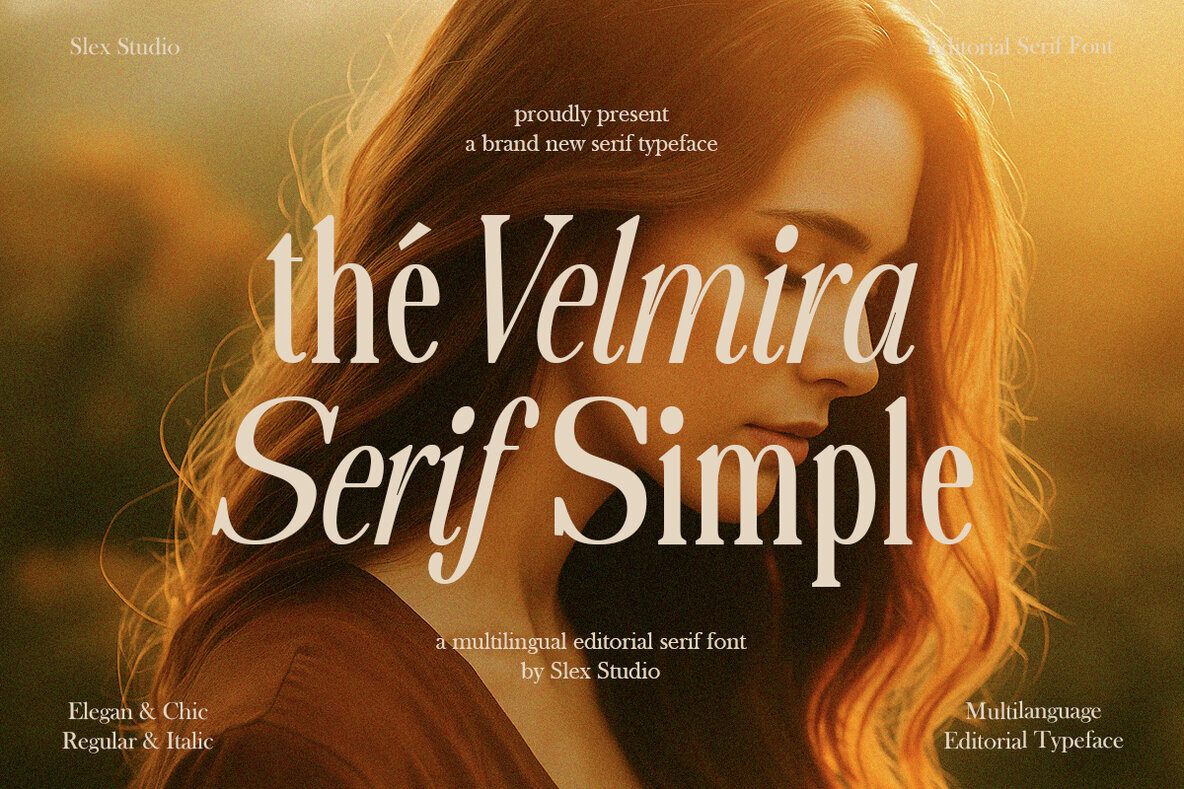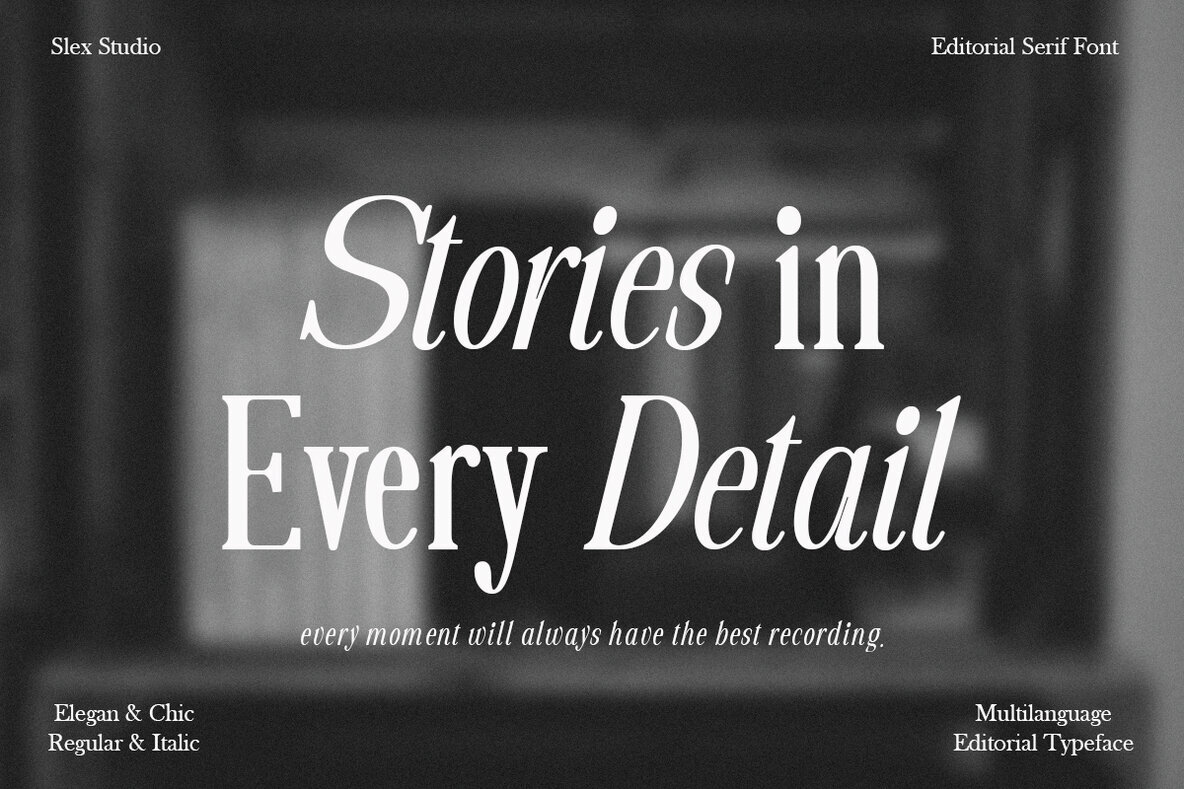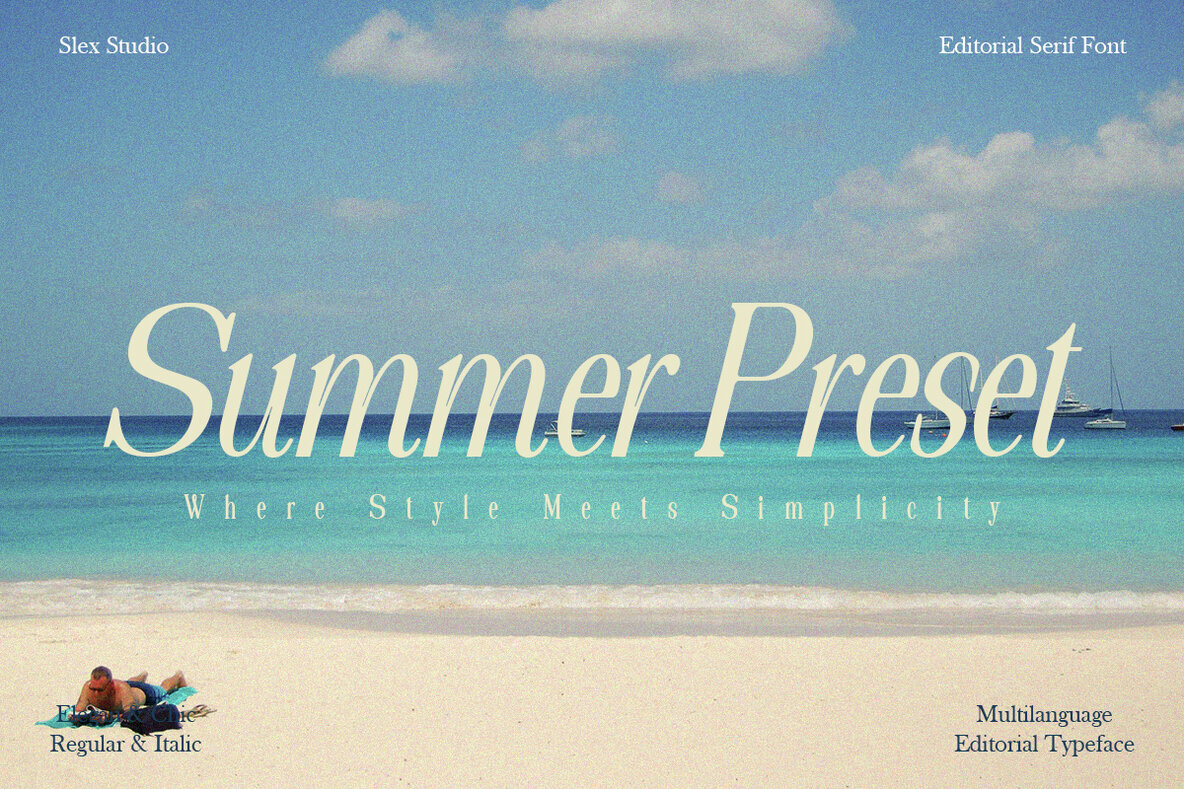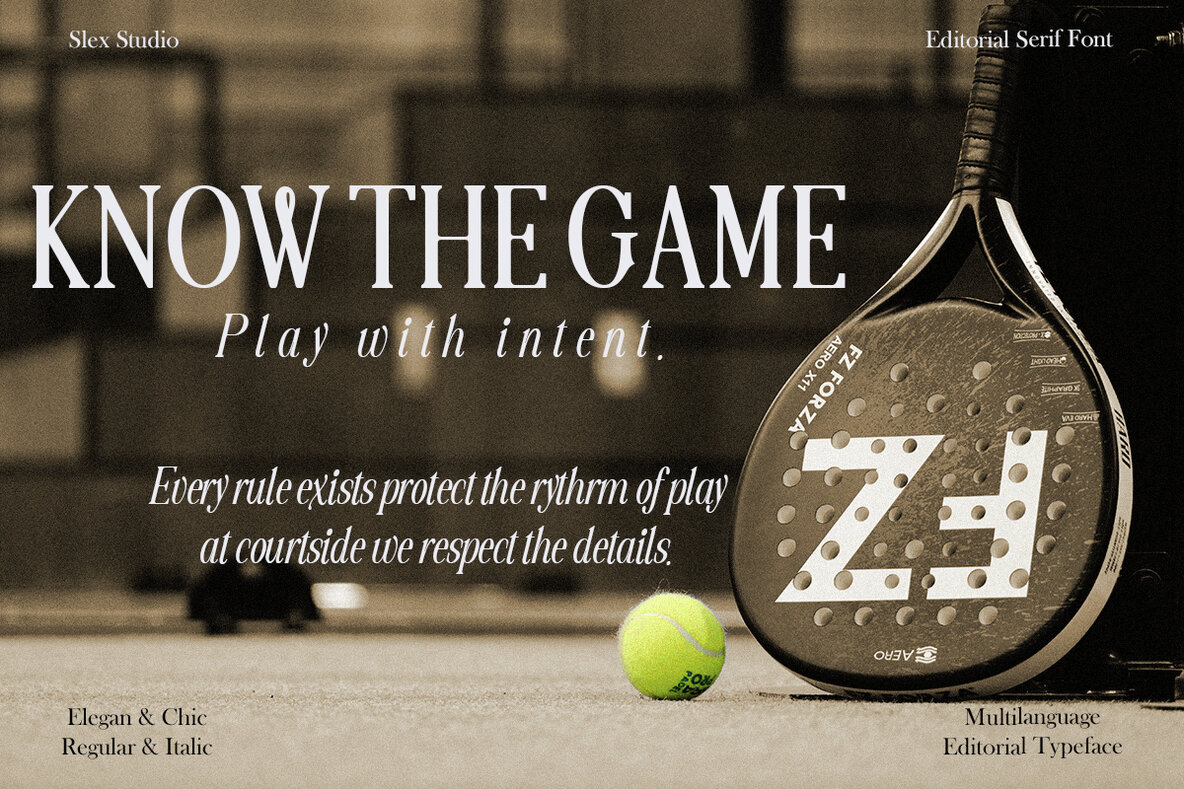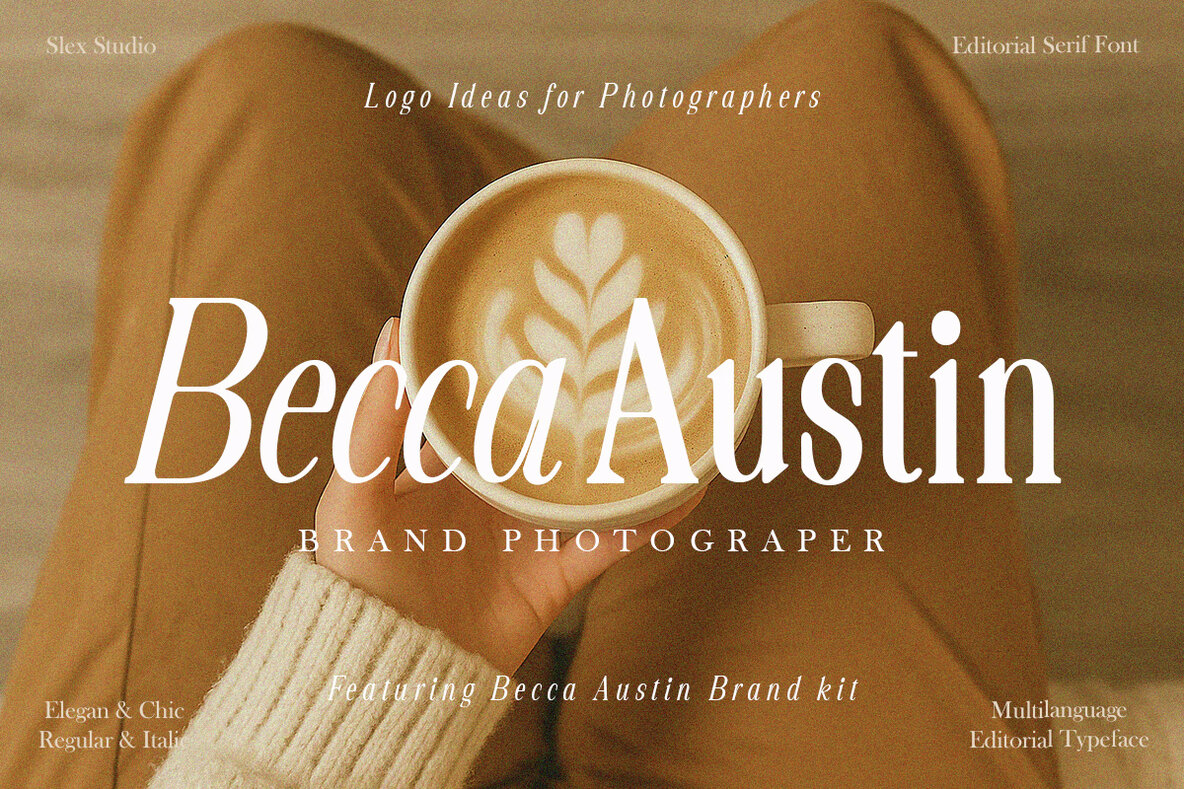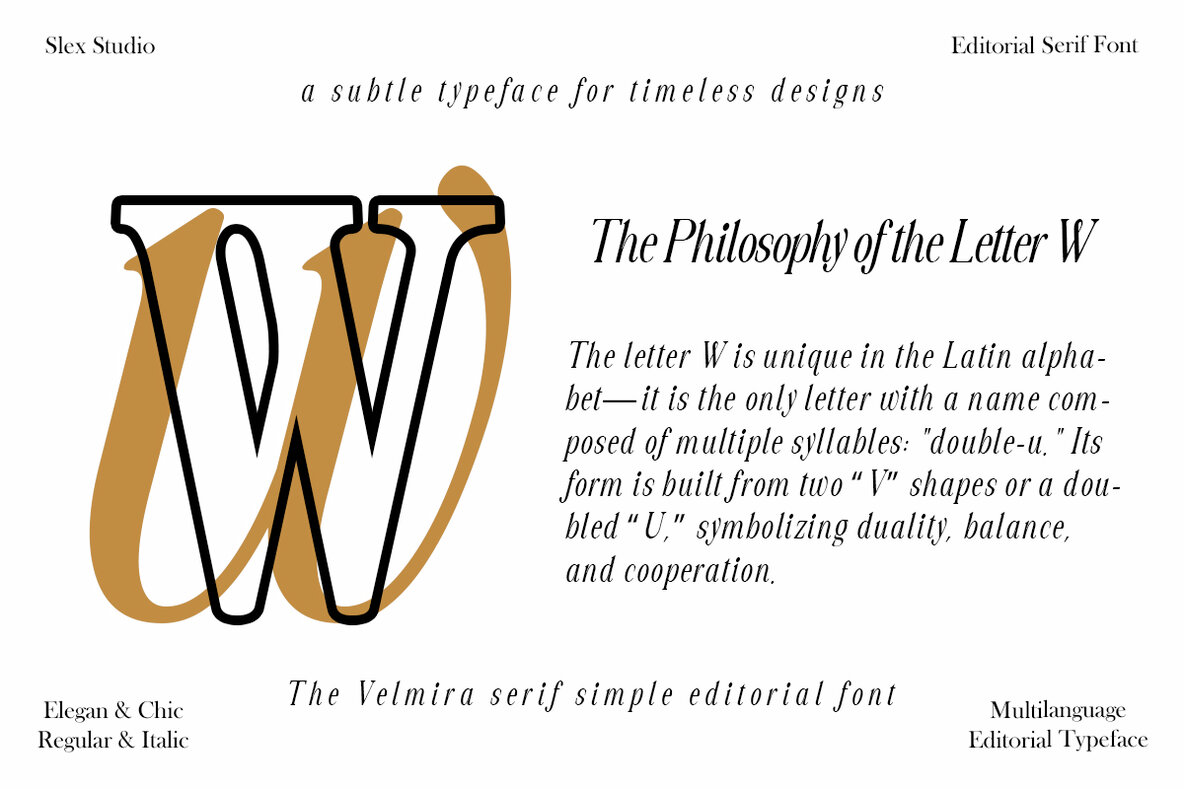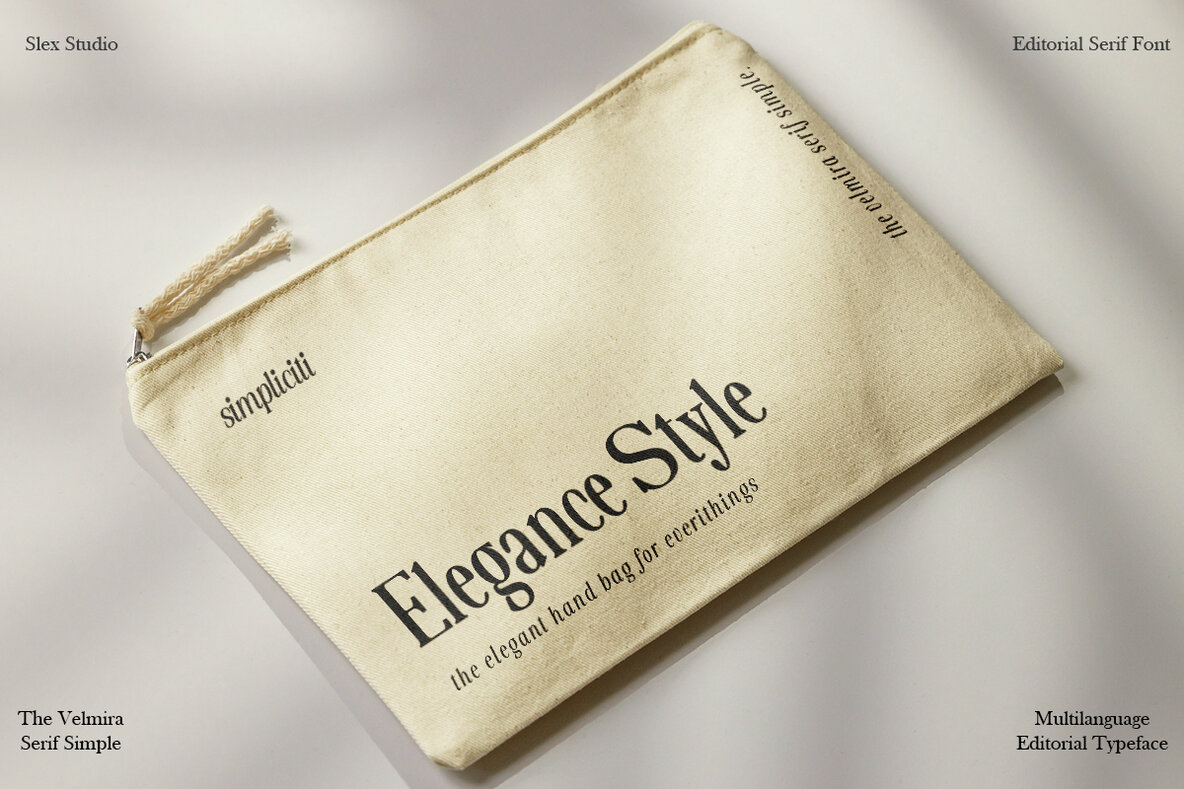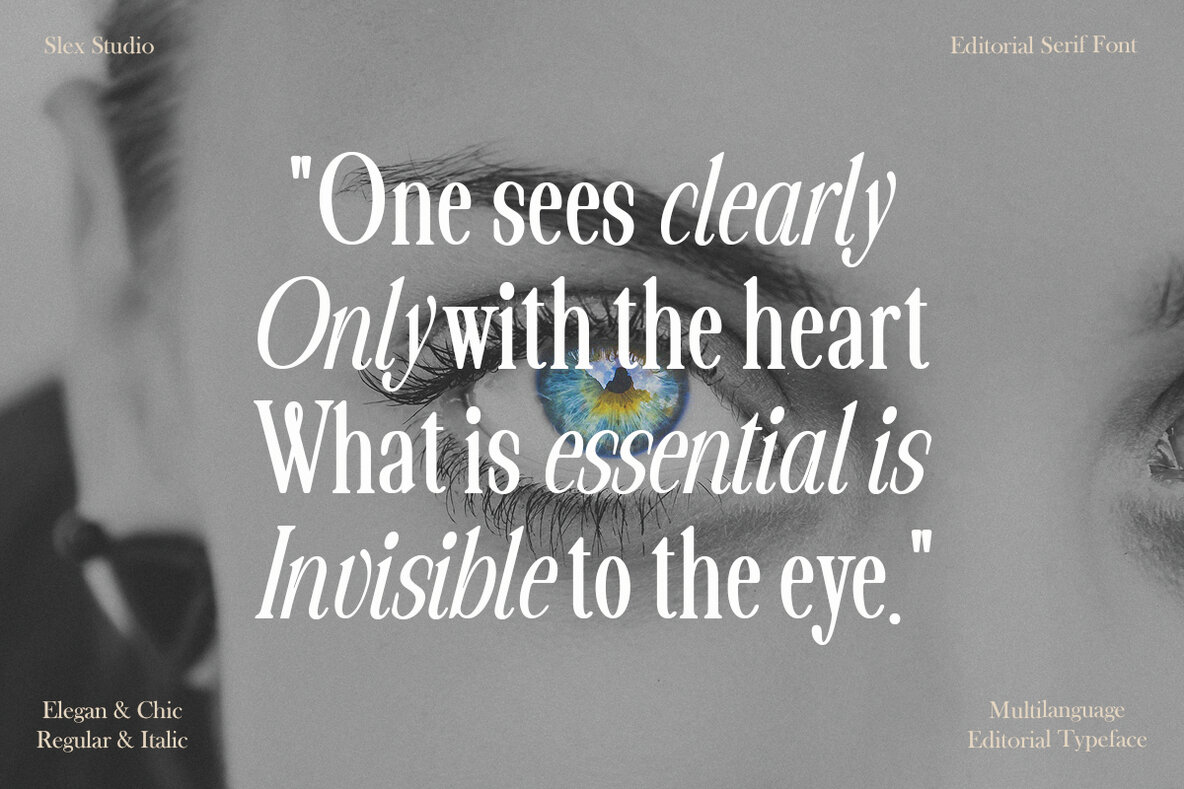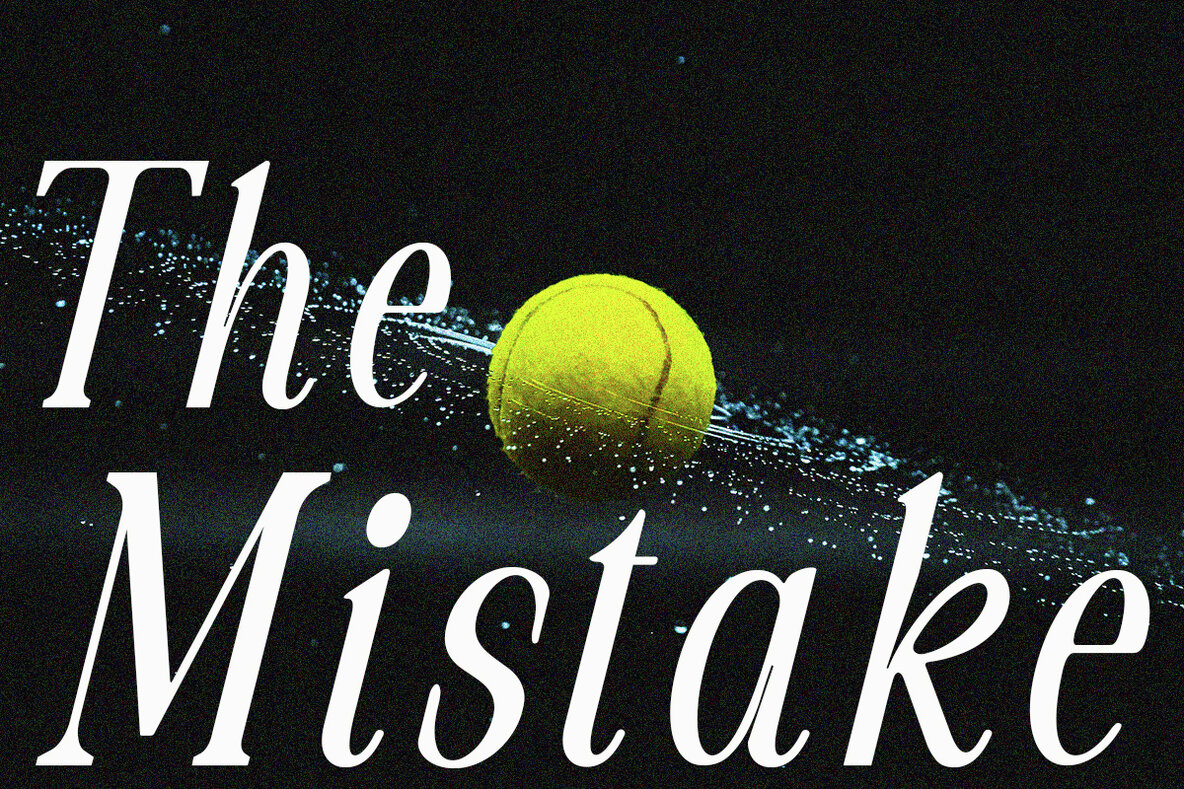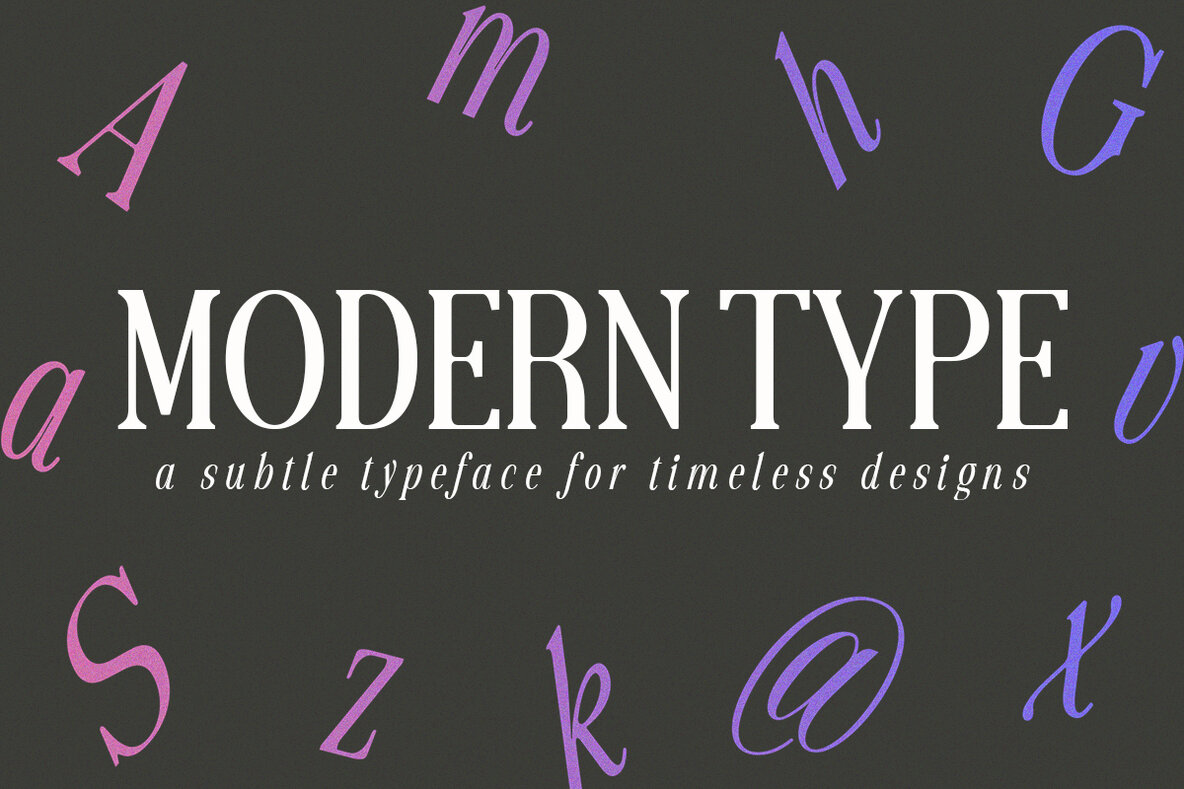
The Velmira Font
The Velmira Regular
The Velmira Italic
Velmira Serif Simple presents a perfect blend of classic and contemporary aesthetics in typography. Designed with a focus on sophistication, this editorial serif typeface comprises both regular and italic styles. It seamlessly integrates timeless serif details with a modern touch, making it an outstanding choice for magazines, branding, and high-end design projects. Its versatility enhances its appeal across diverse editorial and creative applications. The balanced proportions and graceful curves of Velmira evoke a sense of chic minimalism. This quality makes it an ideal choice for projects that demand a polished yet approachable aesthetic.Velmira Serif Simple: Editorial Elegance and Clarity